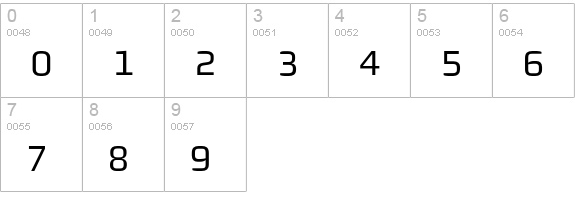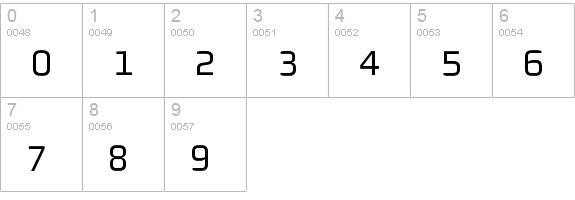
MorganSnCaps Font Details
Introducing MorganSnCaps font - a stunning display typeface that exudes elegance and sophistication. With its bold lines and sleek design, MorganSnCaps font is perfect for adding a touch of class to your projects. This versatile font can be used for a variety of purposes, from branding and logos to headlines and invitations. What sets MorganSnCaps font apart is not only its striking appearance but also its accessibility. This font is available for free download at FontsMarket.com, making it easily accessible to designers and creatives looking to elevate their work without breaking the bank. Whether you're working on a professional project or simply want to add a touch of style to your personal designs, MorganSnCaps font has you covered. Download it today and see the difference it can make in your next project!